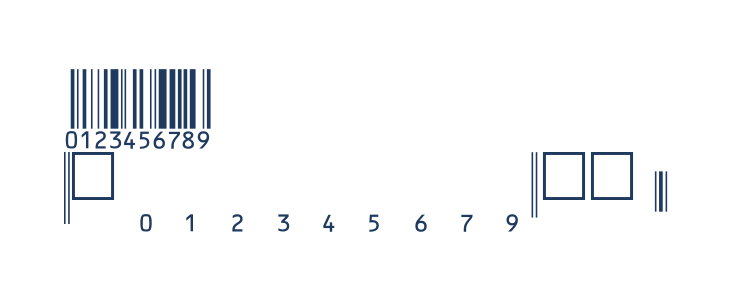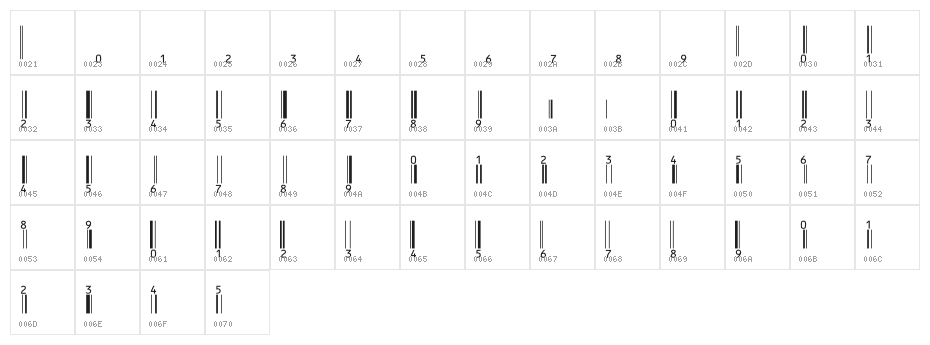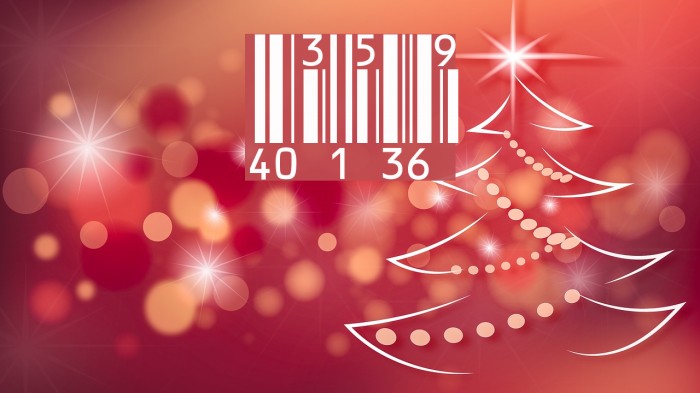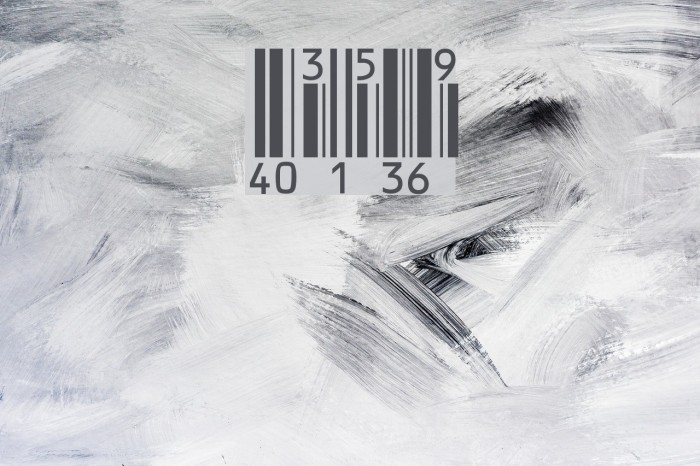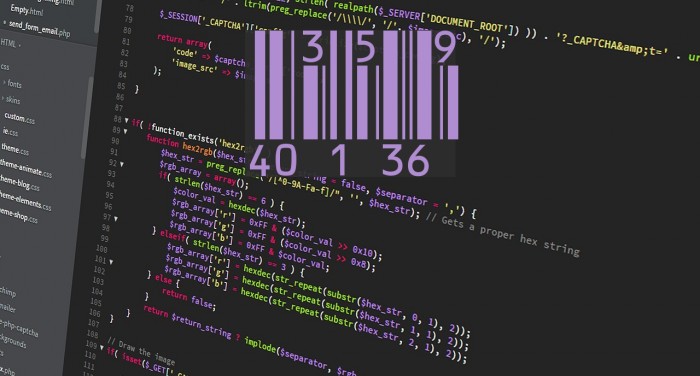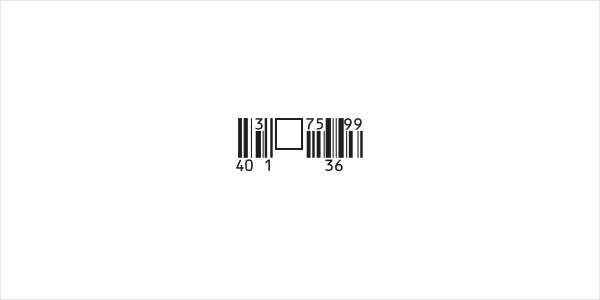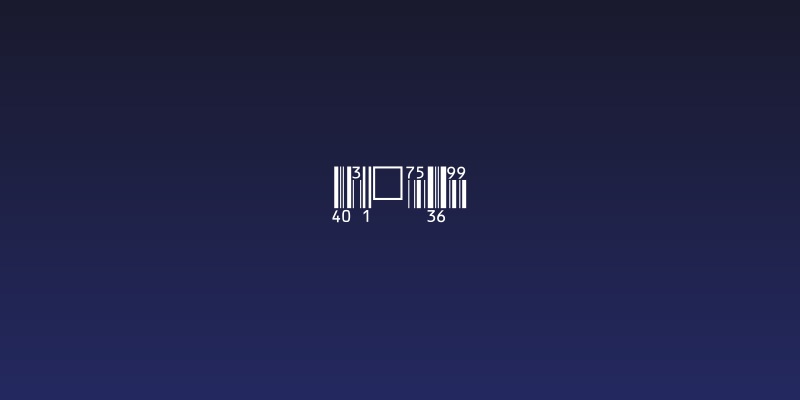
EanBwrP36Tt Font
EanBwrP36Tt Description
A utilitarian, monospaced font with clean, geometric numerals designed for barcode and technical labeling, featuring uniform stroke widths and clear separation between characters.
| Overall Style | Utilitarian, Technical |
| Use Case | Barcodes, Labels, Technical displays |
| Proposed Projects | Barcode generation, inventory systems, technical documentation, labeling, packaging. |